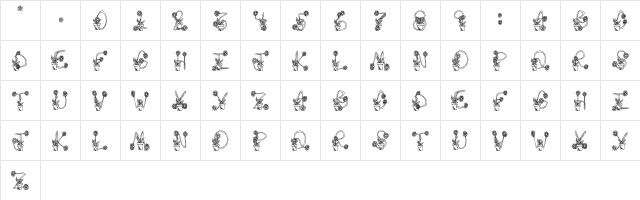
FlowerSketches Regular
| Designer | Original artist unknown |
Design Context for FlowerSketches Typeface
FlowerSketches is a composed and adaptable typeface that performs quietly and consistently across a wide range of design contexts.